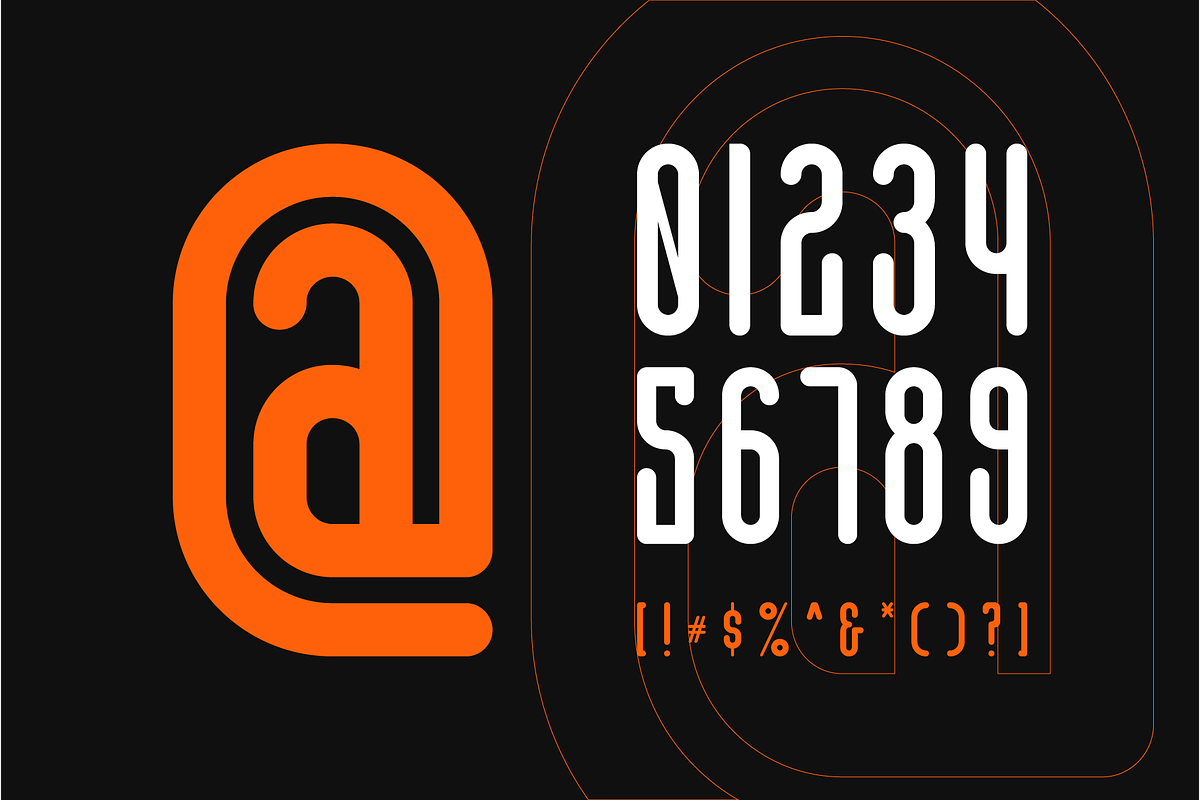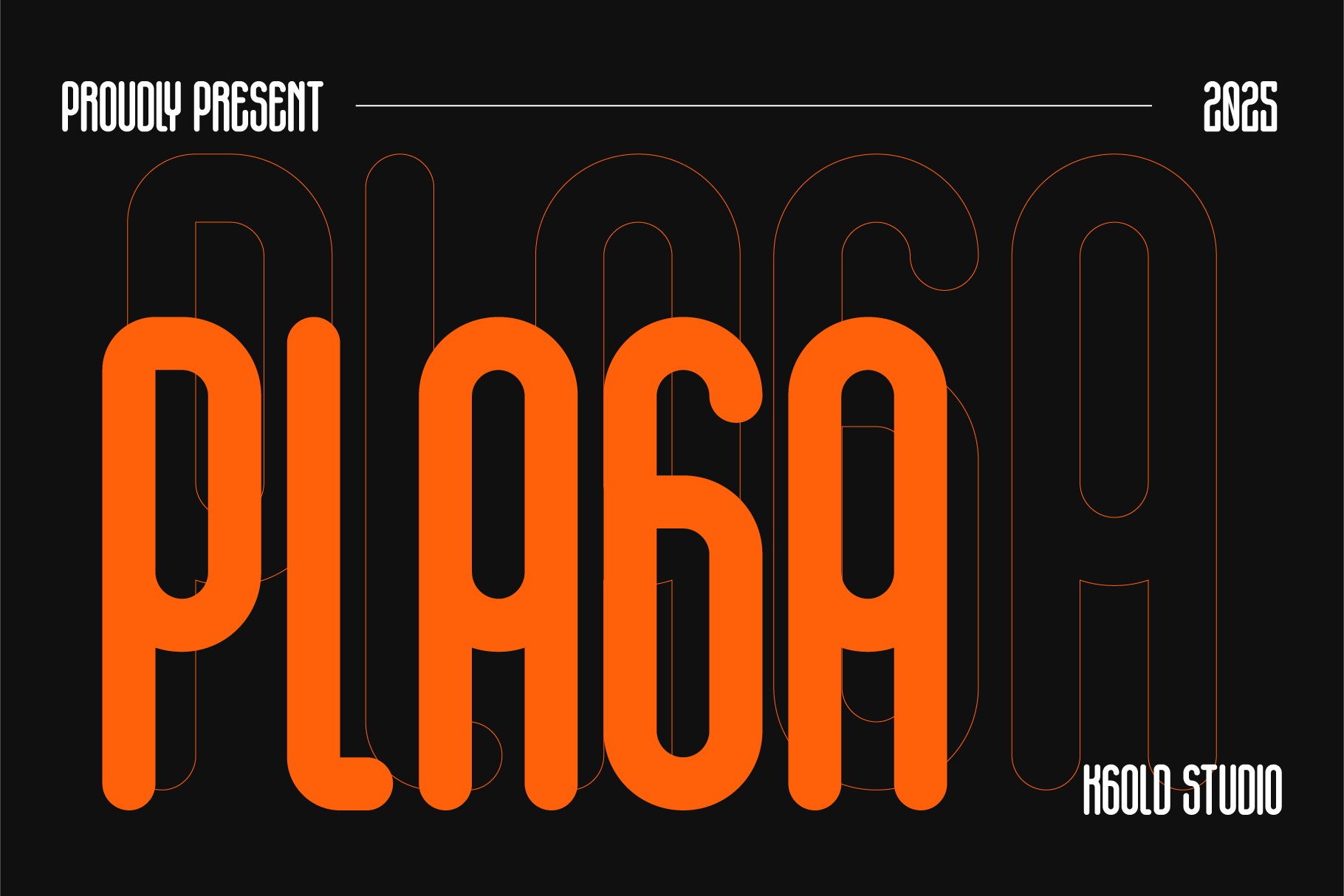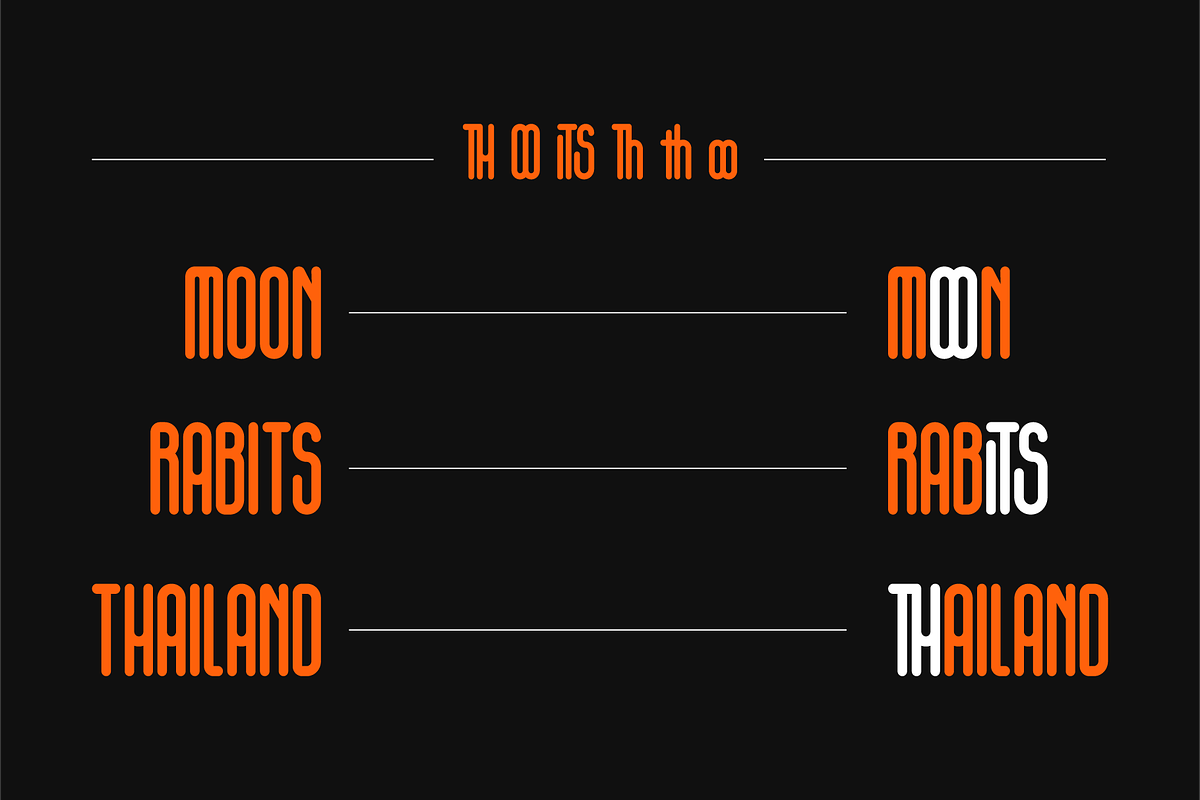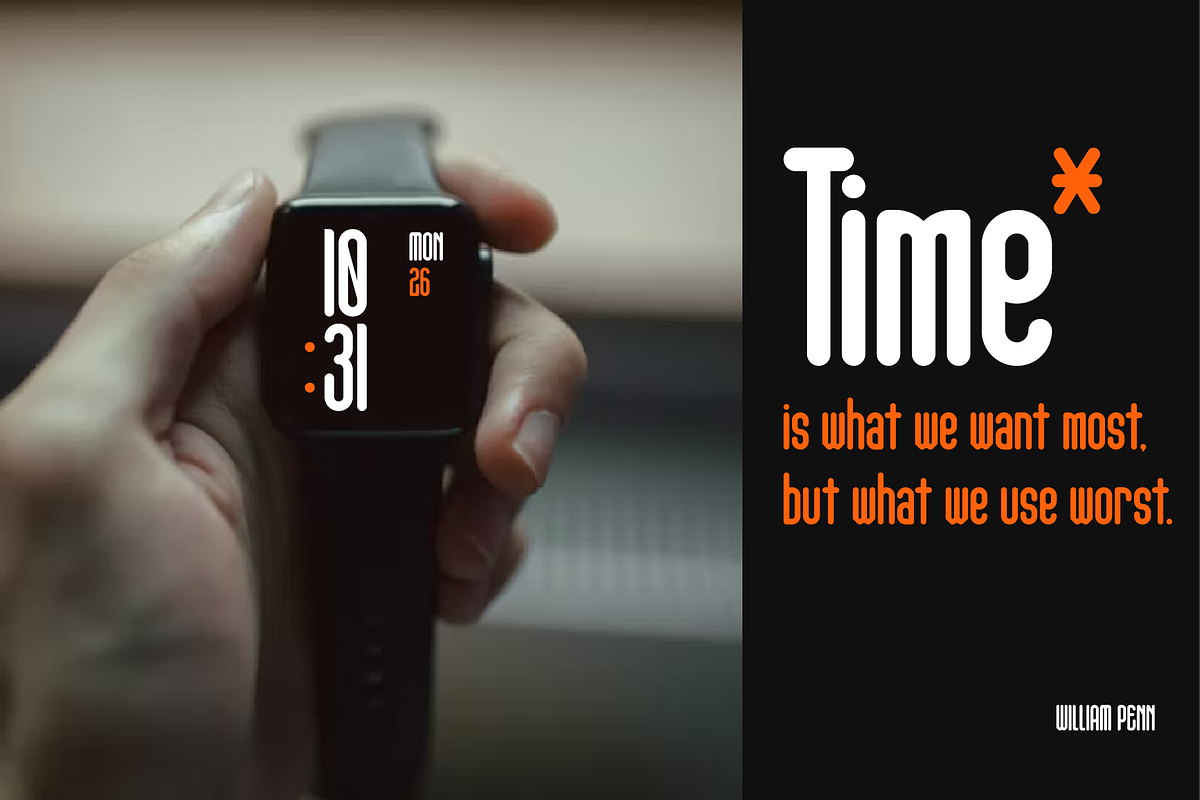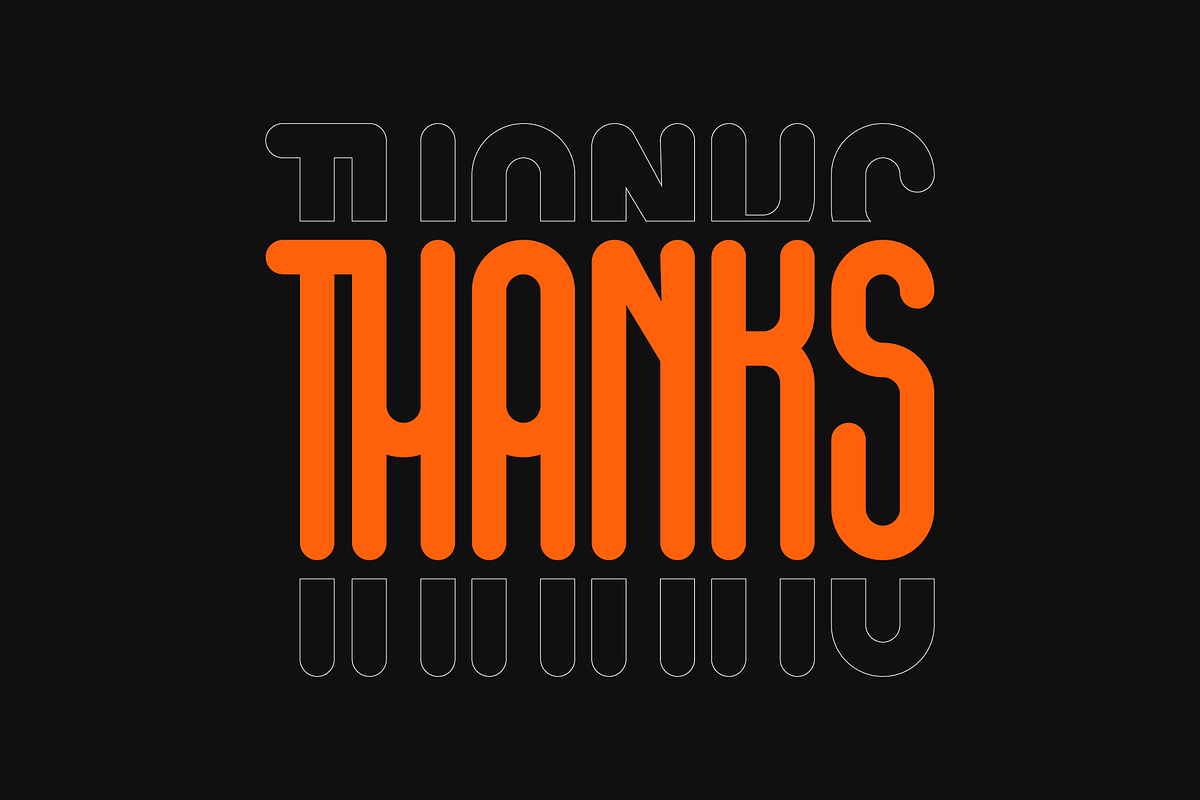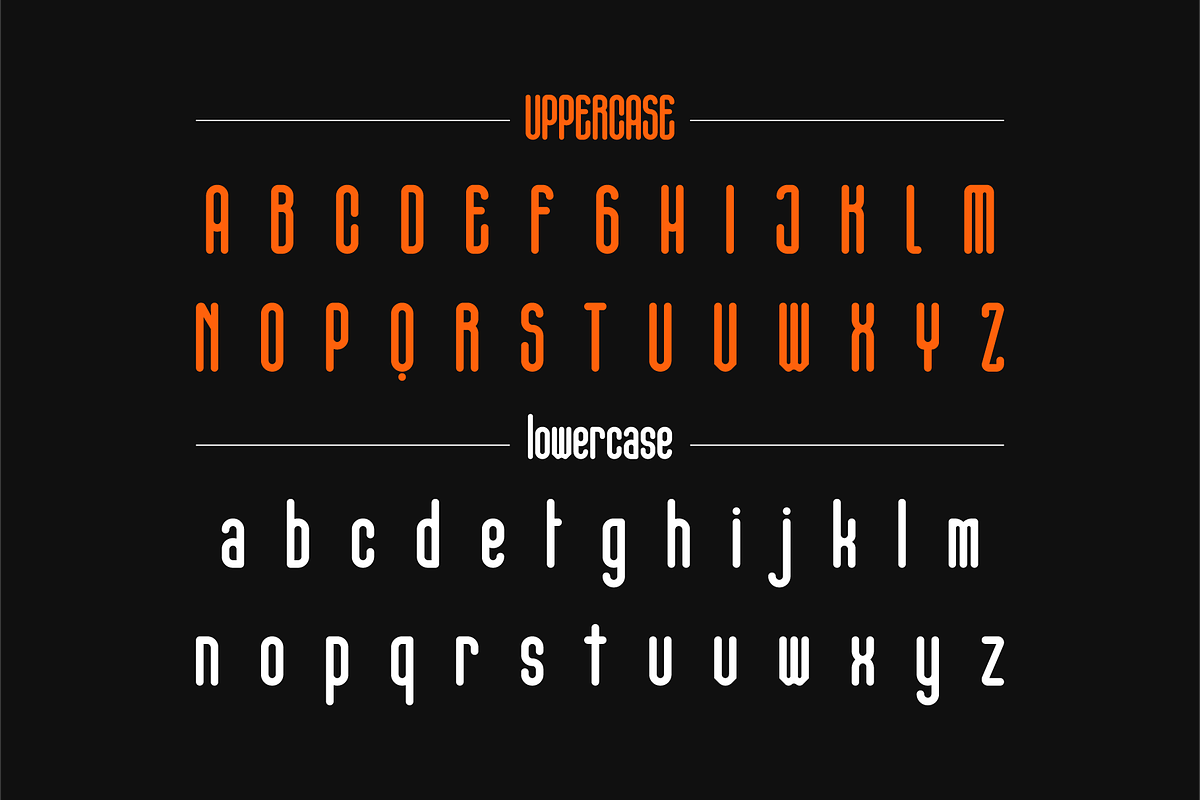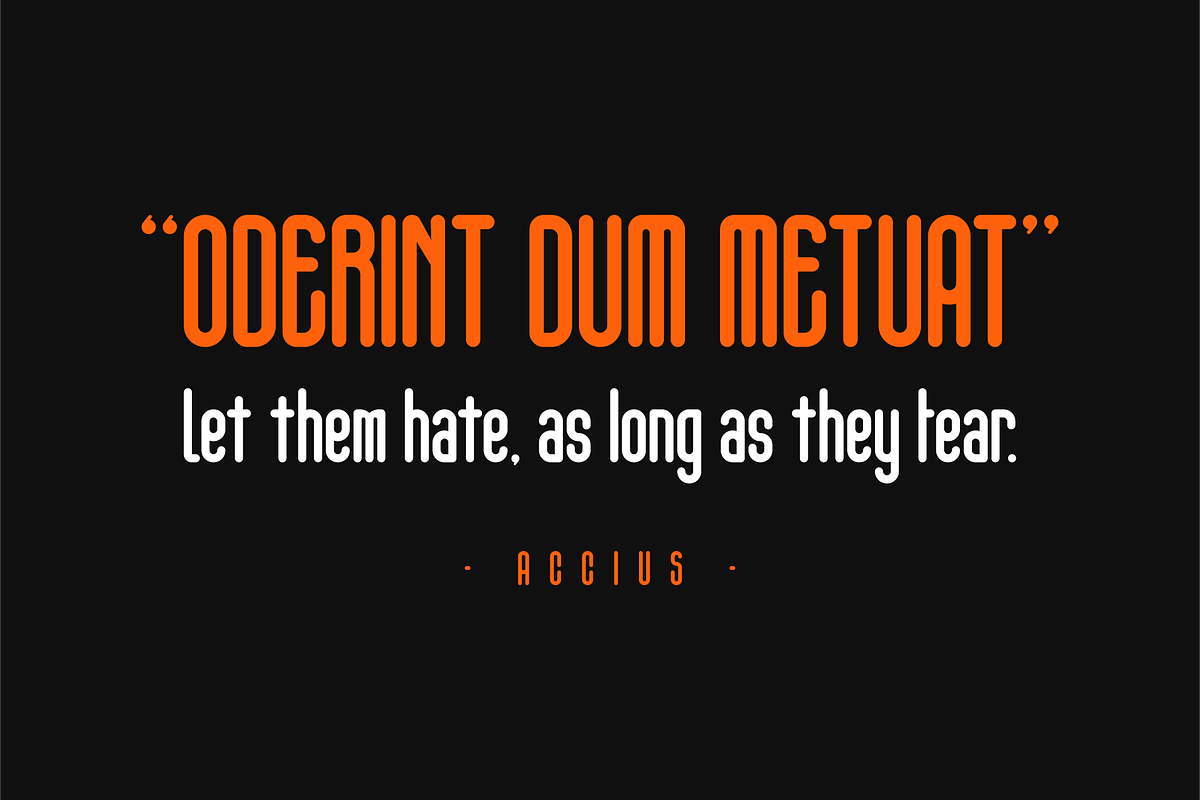
Plaga - Display Typeface
Plaga is a bold, condensed display typeface that fuses retro sci-fi vibes with a sleek, modern twist. Perfectly balanced between nostalgia and innovation, this typeface features elongated vertical forms, rounded terminals, and a unique modular construction that makes it ideal for branding, headlines, posters, apparel, and digital artwork.
Whether you're crafting a vaporwave-inspired album cover, a cyberpunk title sequence, or a standout logo, Plaga will elevate your design with an edgy, high-impact presence.
- All-Caps with matching lowercase style
- Distinctive vertical rhythm and geometric structure
- Clean, minimalist curves with futuristic detailing
- Multilingual support (basic Latin & extended glyphs)
- Tech & gaming brands
- Retro-futuristic posters
- Sci-fi book covers & film titles
- Urban apparel & streetwear
- Creative agencies & web banners